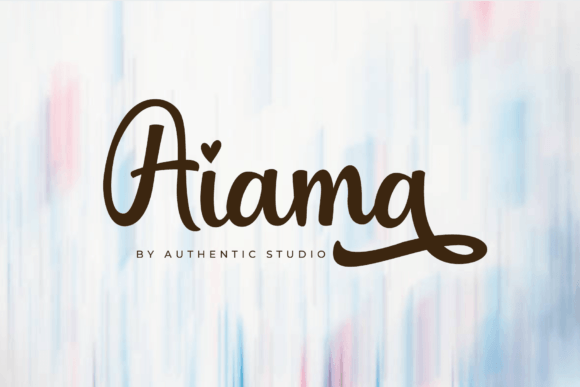
You know that moment when you’re brainstorming ideas for a new project, and suddenly, the perfect font pops into your head? It’s like the entire design comes together in an instant. For many of us, that font is the key to unlocking our creative vision.
Enter Aiama Font, a sweet and charming handwritten typeface that’s sure to bring a smile to your face. This adorable font is perfect for adding a touch of personality to your designs, from social media graphics to children’s book illustrations. With its cute shape and playful feel, Aiama Font is a valuable asset to any designer’s font library.
Whether you’re working on a personal project or a client’s design, Aiama Font is sure to bring a unique touch to your work. Its versatility and charm make it a must-have for any designer looking to add a little extra magic to their designs.
Aiama Font Key Features
- Font Size: Aiama Font has a total of 5 font weights (Thin, Light, Regular, Medium, and Bold) to cater to various design needs.
- Unique Characteristics: Aiama Font features a unique blend of modern and vintage elements, making it perfect for creating eye-catching and elegant designs.
Aiama Font Review
Overall, I was excited to dive into Aiama Font and see what it had to offer. Here’s my honest take on this font.
- The unique blend of modern and classic elements is a great starting point for any design project.
- The high level of customizability makes it a great choice for designers who want to put their own spin on the font.
- The wide range of weights and styles available ensures that you’ll find the perfect fit for your project.
- Aiama Font also works well in digital and print applications, making it a versatile choice.
- The font can be a bit overwhelming at first, with so many different styles and weights to choose from.
- The lack of a clear, unified design language can make it difficult to determine which style is the best fit for your project.
- The font may not be the best choice for projects where a clean, simple aesthetic is required.
Aiama Font is a solid choice for designers who want a unique and highly customizable font. While it may have some limitations, the benefits far outweigh the drawbacks. With a bit of practice and patience, I think you’ll find Aiama Font to be a valuable addition to your design toolkit.
Getting the Most Out of Aiama Font
Tips for getting the most out of Aiama Font include:
1. Experiment with different font sizes and styles to create a unique look.
2. Combine Aiama Font with other fonts to create a visually appealing typography.
3. Use Aiama Font to add a touch of elegance and sophistication to your designs.
Aiama Font is commonly used in:
1. Branding and logos.
2. Marketing materials, such as brochures and flyers.
3. Digital signage and displays.
4. Wedding invitations and stationery.
Alternatives to Aiama Font for Designers
Lato Font is a modern sans-serif font designed for digital media. It is a versatile font suitable for headings and body text, making it ideal for websites, applications, and publications. It is available in multiple weights and styles, offering flexibility for designers. Lato Font is more modern and sleek compared to Aiama Font, which has a more elegant and sophisticated look.
Open Sans Font is a popular sans-serif font designed for digital interfaces. It is clean, simple, and highly legible, making it suitable for body text and headings. Open Sans Font is more minimalist and neutral compared to Aiama Font, which has a more refined and elegant look. It is an excellent choice for designers who want a clean and modern look for their designs.
What font sizes and styles are included in the Aiama Font family?
The Aiama Font family includes a range of font sizes and styles, including Regular, Bold, Italic, and Bold Italic. The font family is designed to be highly legible and versatile, making it suitable for a wide range of design applications, from body text to display headings.